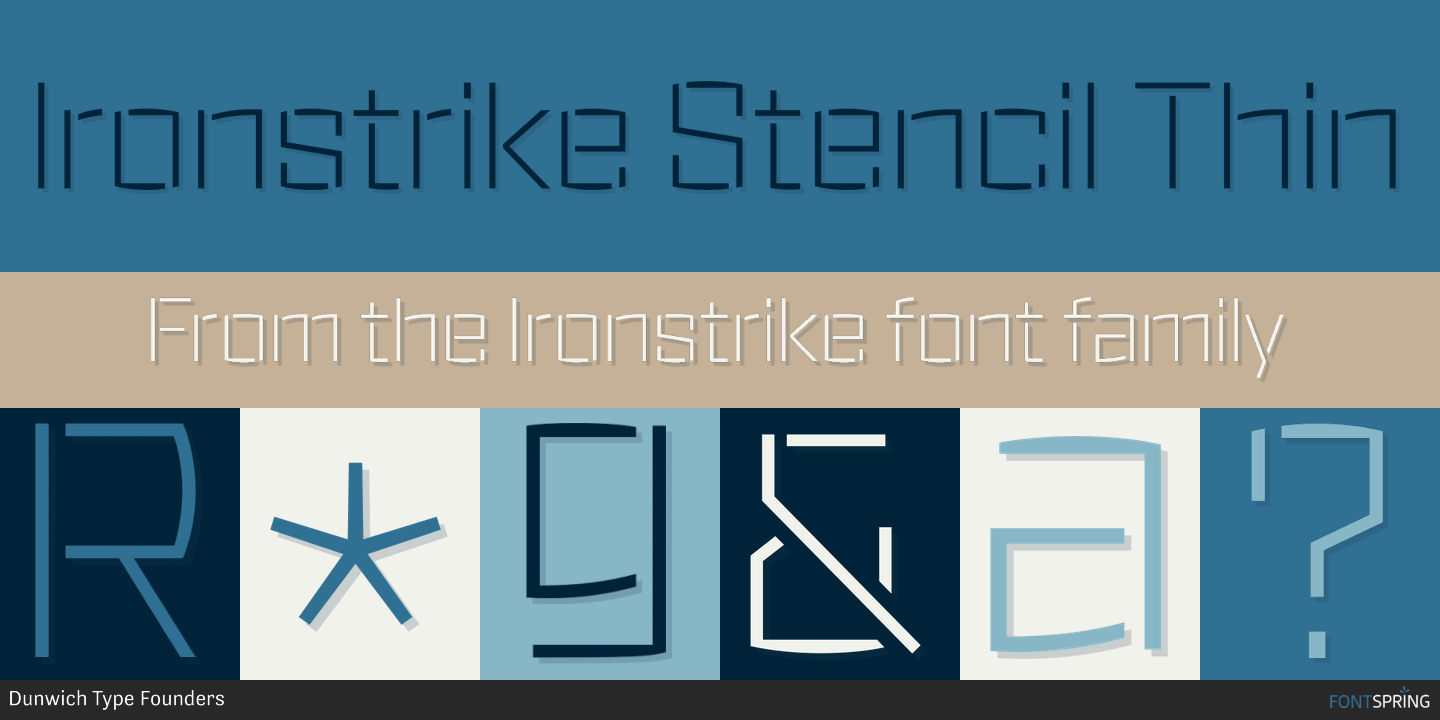
Ironstrike Font Free Download . A typeface with 28 styles, available from adobe fonts for sync and web. Ironstrike pays homage to industrial and constructivist lettering.
Ironstrike Complete Font Family by Dunwich Type Founders Font Bros
Ironstrike Font Free Download - Size airstrike à € by iconian. Web an intense 17.5° italic slant makes words scream across the page. Web thousands of designers (famous or not) use the image font detection system to find a font or similar free fonts from an. Ironstrike pays homage to industrial and constructivist lettering. Web explore ironstrike designed by james puckett at adobe fonts.
Ironstrike Font Free Download - What is the ironstrike™ font? Web an intense 17.5° italic slant makes words scream across the page. Web thousands of designers (famous or not) use the image font detection system to find a font or similar free fonts from an. Size airstrike à € by iconian. Airstrike à € by iconian fonts.
Ironstrike Font Free Download - Airstrike à € by iconian fonts. Web ironstrike pays homage to industrial and constructivist lettering. 85 matching requests on the forum. What is the ironstrike™ font? Web an intense 17.5° italic slant makes words scream across the page.
Ironstrike Font Free Download - Web information about the font ironstrike bold from dunwich type founders, and where to download it. 85 matching requests on the forum. Web explore ironstrike designed by james puckett at adobe fonts. Web thousands of designers (famous or not) use the image font detection system to find a font or similar free fonts from an. Web ironstrike pays homage to.
Ironstrike Font Free Download - Web ad by iconian fonts. Web an intense 17.5° italic slant makes words scream across the page. Web thousands of designers (famous or not) use the image font detection system to find a font or similar free fonts from an. Web information about the font ironstrike bold from dunwich type founders, and where to download it. Rigid shapes and tall.
Ironstrike Font Free Download - 85 matching requests on the forum. Web ironstrike pays homage to industrial and constructivist lettering. Airstrike à € by iconian fonts. Web click to download from myfonts →. Opentype tablular figures and arbitrary.
Ironstrike Font Free Download - Airstrike à € by iconian fonts. Size airstrike à € by iconian. What is the ironstrike™ font? Rigid shapes and tall lowercase letters evoke strength and technology. Web click to download from myfonts →.
Ironstrike Font Free Download - Rigid shapes and tall lowercase letters evoke strength and technology. A typeface with 28 styles, available from adobe fonts for sync and web. Web an intense 17.5° italic slant makes words scream across the page. Size airstrike à € by iconian. Web ironstrike pays homage to industrial and constructivist lettering.
Ironstrike Font Free Download - Web an intense 17.5° italic slant makes words scream across the page. Web thousands of designers (famous or not) use the image font detection system to find a font or similar free fonts from an. Airstrike à € by iconian fonts. Size airstrike à € by iconian. Web explore ironstrike designed by james puckett at adobe fonts.
Ironstrike Font Free Download - Web explore ironstrike designed by james puckett at adobe fonts. What is the ironstrike™ font? Size airstrike à € by iconian. Web an intense 17.5° italic slant makes words scream across the page. Web click to download from myfonts →.
Ironstrike Font Free Download - What is the ironstrike™ font? Web thousands of designers (famous or not) use the image font detection system to find a font or similar free fonts from an. Size airstrike à € by iconian. Web an intense 17.5° italic slant makes words scream across the page. Opentype tablular figures and arbitrary.
Ironstrike Font Free Download - Web thousands of designers (famous or not) use the image font detection system to find a font or similar free fonts from an. Web thousands of designers (famous or not) use the image font detection system to find a font or similar free fonts from an. Web information about the font ironstrike bold from dunwich type founders, and where to.
Ironstrike Font Free Download - What is the ironstrike™ font? Web ironstrike pays homage to industrial and constructivist lettering. Rigid shapes and tall lowercase letters evoke strength and technology. Web ad by iconian fonts. Opentype tablular figures and arbitrary.
Ironstrike Font Free Download - Web thousands of designers (famous or not) use the image font detection system to find a font or similar free fonts from an. Rigid shapes and tall lowercase letters evoke strength and technology. Ironstrike pays homage to industrial and constructivist lettering. Size airstrike à € by iconian. Airstrike à € by iconian fonts.